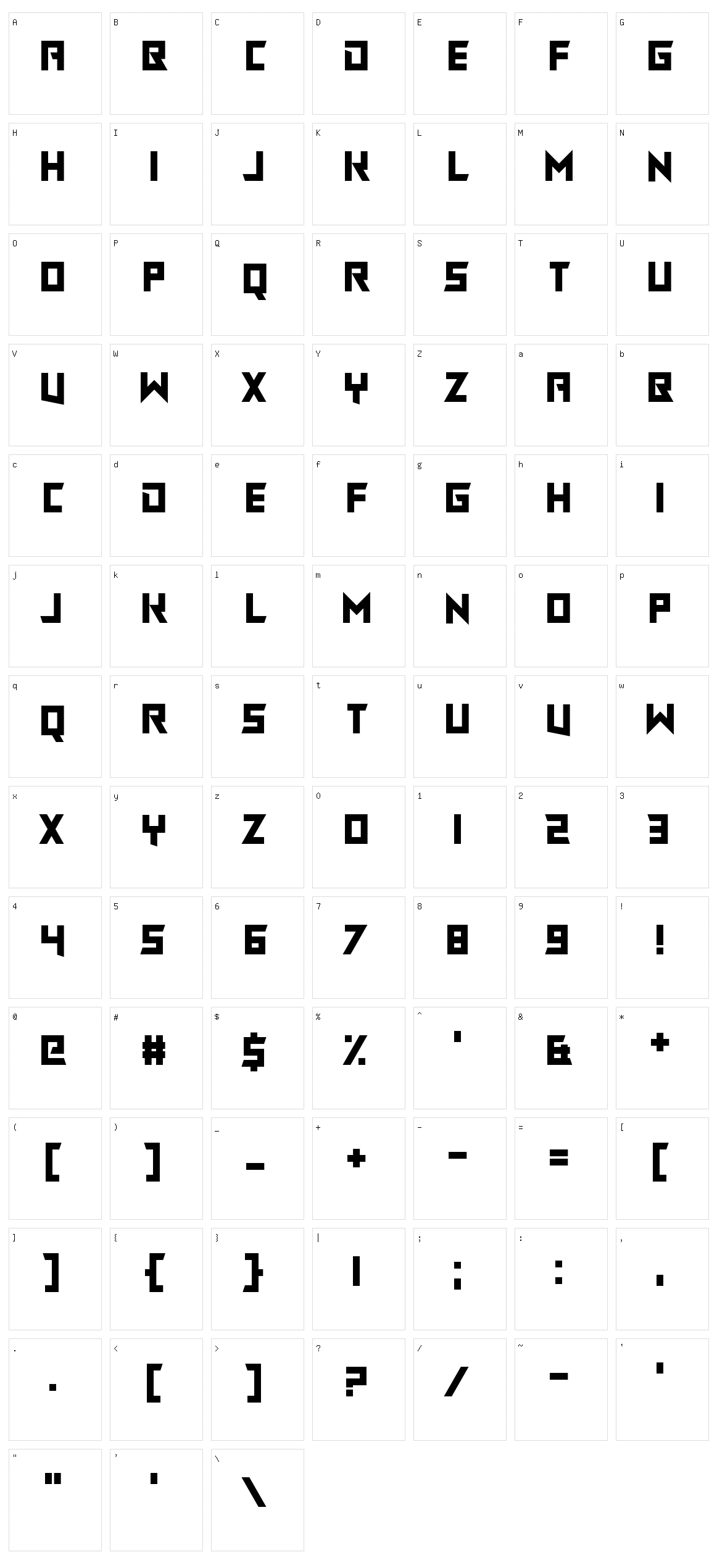
The free font Chasing Rabbits is carefully designed by Chequered Ink, showcasing a thoughtful balance of creativity and usability and falls under the Square font style. When you download the ZIP file, it contains only 9.78 KB of font files, making it lightweight and quick to download. Please review the license details below to understand permitted usage and distribution rights. If license information is not available, we recommend using this font for personal projects only or contacting the author directly for commercial usage permissions.